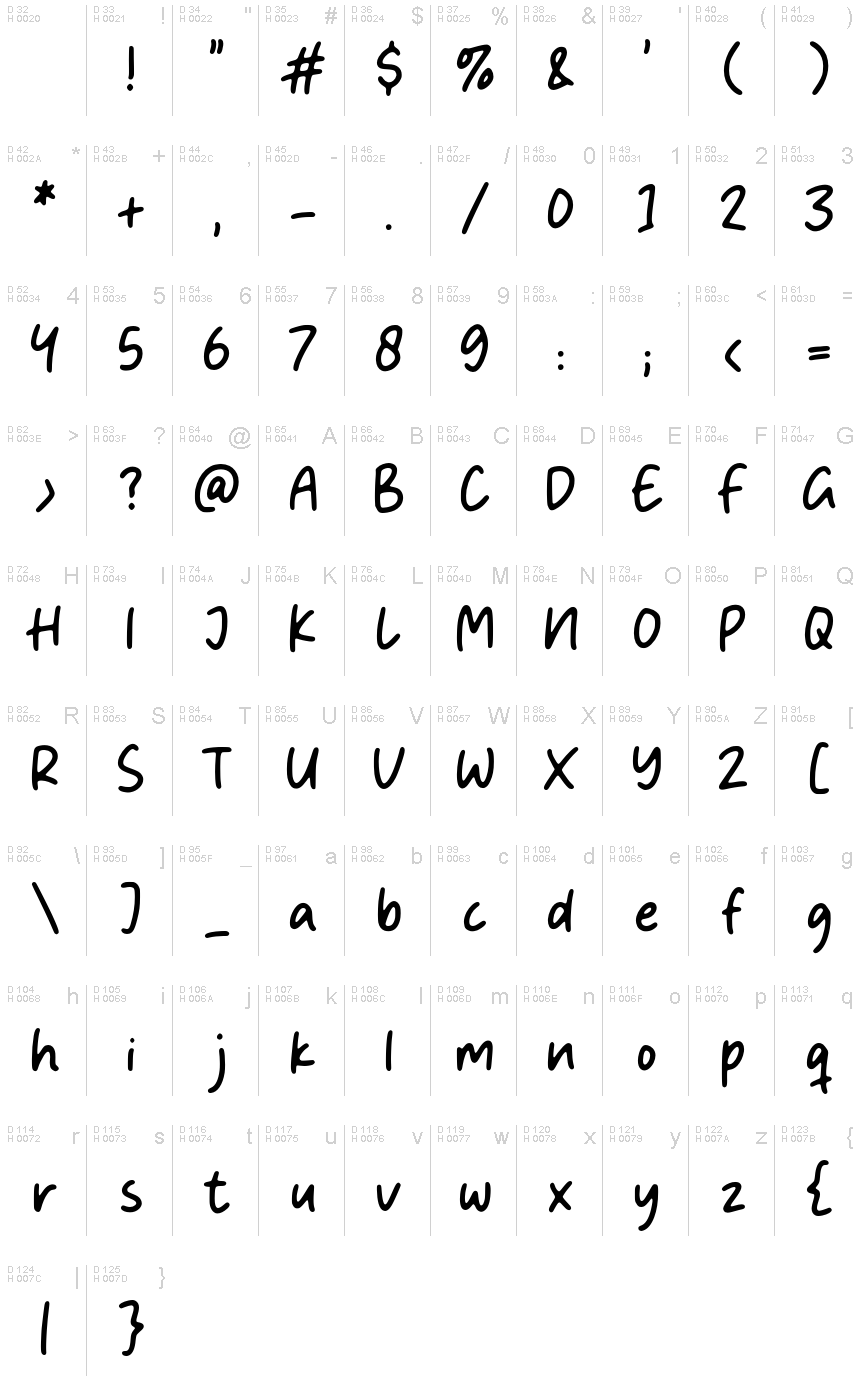
Stories-Regular
Stories is a captivating handwritten font crafted by Aestherica Studio. Its organic, freeflowing strokes exude a sense of warmth and authenticity, evoking the charm of handcrafted typography. The font's natural, expressive character lends an inviting, personal touch to any design. With its delicate flourishes and playful ligatures, Stories effortlessly blends elegance and approachability, making it a versatile choice for a wide range of design applications.
This font's adaptability shines through in its ability to elevate various design projects, from editorial layouts and packaging designs to branding initiatives and marketing collaterals. Stories' expressive qualities lend themselves particularly well to product labeling, greeting cards, and personal stationery, where its handwritten flair can establish a genuine, heartfelt connection with the audience. Additionally, its organic aesthetic makes it an excellent selection for wedding invitations, event materials, and other design pieces that require a touch of distinctive, artisanal charm.